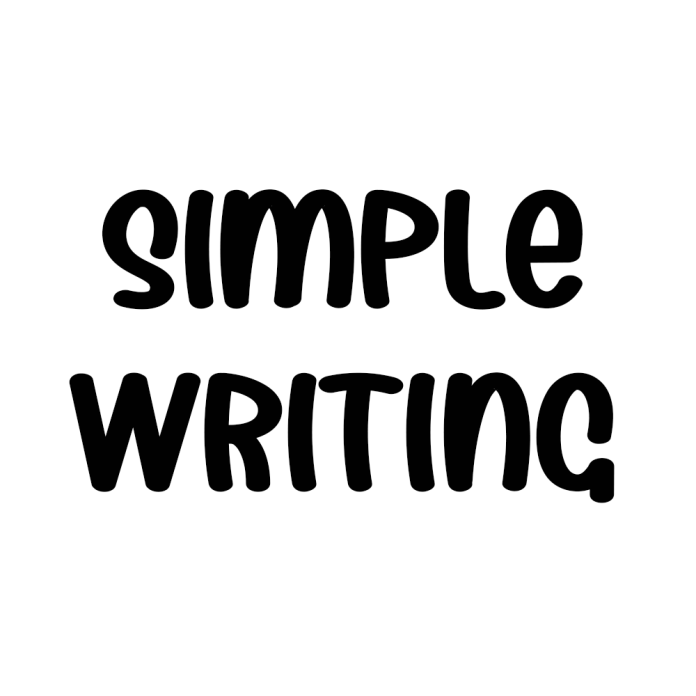
Simple Writing Font is a sweet and friendly handwritten font. Fresh and casual, this font is ideal for writing wedding invitations, cards, or any other design that might need a lovely touch.